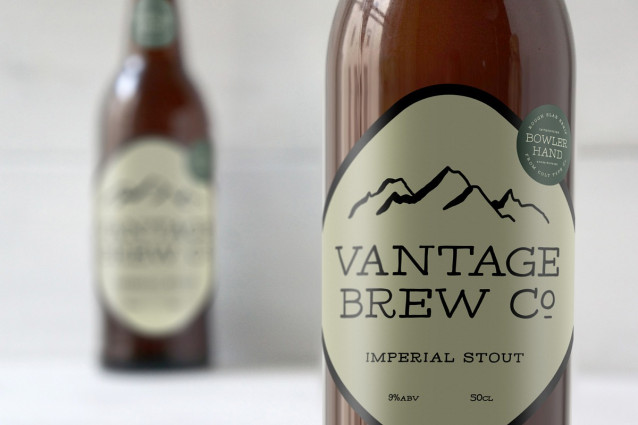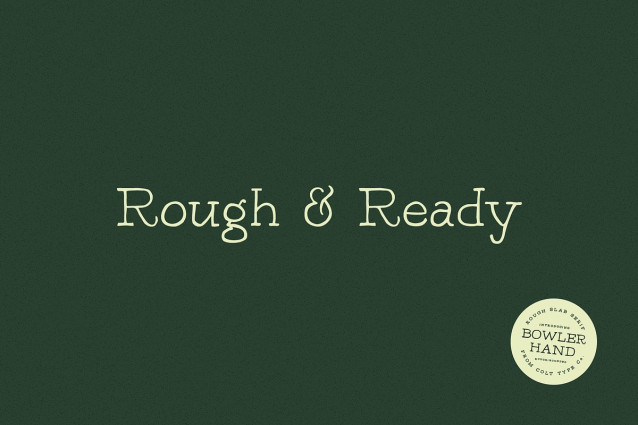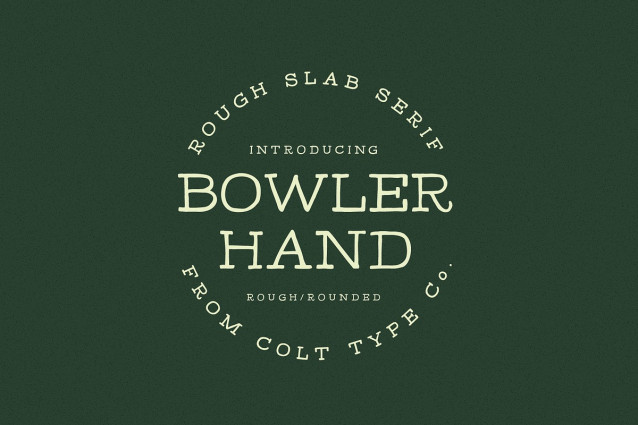
Bowler Hand Font
Bowler Hand Font is a hand-drawn rounded slab display font. Each character is hand-drawn using a Rotring ink pen which gives the font a great, natural look.The pen and ink give the lines a wobbly, kind of grunge feel, making it look aged. This font works really well as a decorative and display font.With its friendly but rough hand-lettered look Bowler Hand is ideal for packaging, invitations, cards, logos and anywhere you want a hand-made feel.Bowler Hand pairs well with Futura and Gill Sans.I really hope you enjoy this brush set, please don’t hesitate to drop me a message if you have any questions.